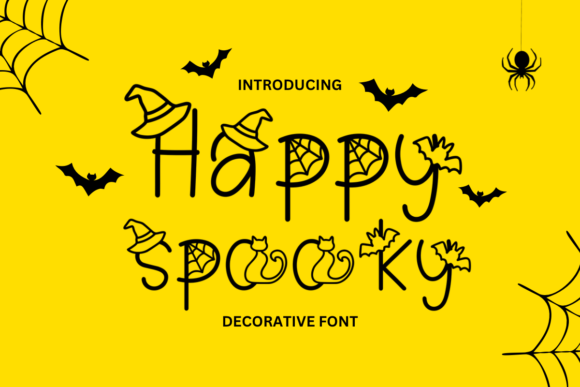
Adding a Touch of Spooky Charm to Your Designs
Have you ever stared at a blank canvas, trying to conjure up the perfect design, but struggling to find the right font to bring your vision to life? You’re not alone. We’ve all been there, stuck in a sea of generic fonts, yearning for something that truly captures the essence of our creative intent.
Enter the Happy Spooky Font – a delightful, decorative font that embodies the spirit of Halloween in all its whimsical glory. Perfect for designs that require a touch of spooky charm, this font is ideal for Halloween and children’s themes, cartoon-related designs, and crafts of all kinds. With its playful, hand-drawn feel, the Happy Spooky Font is a valuable asset for designers seeking to add a unique and lovable touch to their creations.
Key Features of Happy Spooky Font
- Unique Characteristics: Happy Spooky Font features a playful, handwritten style with a spooky twist, making it perfect for Halloween-themed designs, horror movies, and other related projects.
Happy Spooky Font Review
I recently had the chance to work with the Happy Spooky Font, and I must say it’s a mixed bag. On the one hand, there are some things that really shine ✨.
- Unique style: The Happy Spooky Font has a distinct, playful vibe that sets it apart from more traditional fonts. It’s perfect for creating a spooky yet lighthearted atmosphere.
- Wide character set: The font includes a wide range of characters, including international ones, making it a great choice for multilingual designs.
However, there are some limitations ⚠️:
- Lack of consistency: While the font is playful, it can be a bit inconsistent in its design. Some letters and symbols look great, while others seem a bit off.
- Limited legibility: At smaller font sizes, the Happy Spooky Font can be difficult to read, which may limit its use in certain contexts.
Overall, I think the Happy Spooky Font is a fun, unique choice for certain designs, but it may not be the best option for every project. If you’re looking for a spooky yet playful vibe, it’s worth considering. Just be aware of its limitations and use it accordingly.
Happy Spooky Font is ideal for Halloween-themed designs, spooky invitations, and horror movie posters. To get the most out of it, use it in conjunction with dark colors and bold graphics. Experiment with different font sizes and styles to create a dramatic effect.